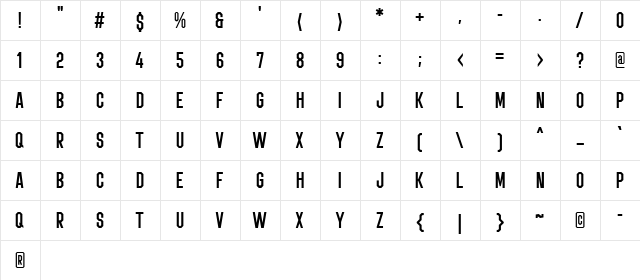
SPORTVIPER Regular
| Designer | Muhammad Farhan Sholeh Ramadhika |
Design Context for SPORTVIPER Typeface
SPORTVIPER brings high-energy athletic personality to the page — its confident, muscular forms are built for impact.
A natural choice for gym brands, fantasy sports, jersey lettering, and action-driven headlines.
Font Pairing: Use alongside a condensed or geometric sans for supporting copy — keep the pairing bold, functional, and free of ornament.
Pro Tip: Use SPORTVIPER in all-caps headlines where its athletic energy can fully express itself. Pair with a solid, simple sans for supporting text.